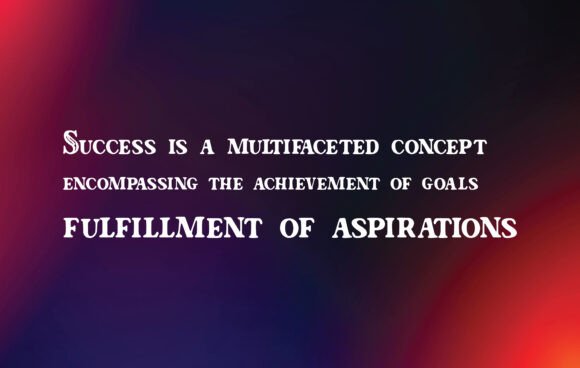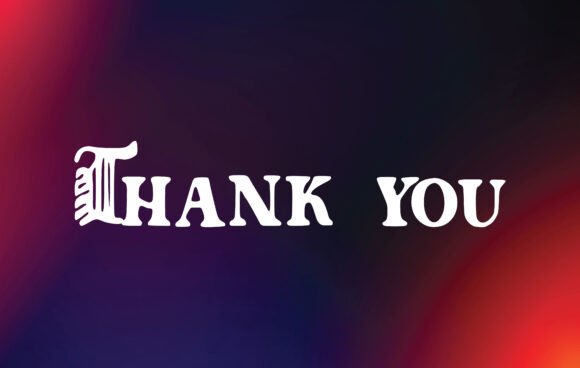
Unleash Your Creativity with Blaze Font: The Ultimate Choice for Designers and Crafters
Are you tired of using the same old fonts for your creative projects? Look no further than Blaze Font, a stunning and versatile typeface that can elevate your designs to new heights. With its unique blend of elegance and playfulness, Blaze Font is the perfect choice for designers and crafters looking to add a touch of sophistication and whimsy to their work.
The Beauty of Blaze Font
Blaze Font is a lovely and beautiful font that boasts a distinctive style that sets it apart from other typefaces. Its sleek lines, curves, and subtle nuances make it a joy to use, whether you’re creating a logo, branding materials, or quotes. The font’s beauty lies in its ability to convey emotion and personality, making it an excellent choice for designers who want to add a human touch to their work.
Take Your Creative Ideas to the Next Level
Blaze Font has the potential to take your creative ideas to the highest level. Its versatility and flexibility make it suitable for a wide range of applications, from digital designs to print materials. Whether you’re working on a logo, brochure, or social media graphics, Blaze Font can help you create stunning visuals that capture your audience’s attention.
The Best Choice for Eye-Catching Logos, Branding, and Quotes
Blaze Font is the best choice for creating eye-catching logos, branding materials, and quotes. Its unique style and flair make it perfect for:
- Logos: Create a lasting impression with a custom logo that showcases your brand’s personality and values.
- Branding: Establish a consistent visual identity across all your marketing materials with Blaze Font.
- Quotes: Add a touch of elegance and sophistication to your inspirational quotes and sayings.
Why Designers and Crafters Love Blaze Font
Designers and crafters love Blaze Font for several reasons:
- Unique Style: Blaze Font boasts a distinctive style that sets it apart from other typefaces.
- Versatility: The font is suitable for a wide range of applications, from digital designs to print materials.
- Ease of Use: Blaze Font is easy to read and works well in various contexts.
- Customization: The font can be customized to fit your brand’s personality and style.
Tips for Using Blaze Font Effectively
Here are some tips for using Blaze Font effectively:
- Pair it with Other Fonts: Combine Blaze Font with other fonts to create a unique and visually appealing design.
- Experiment with Colors: Try out different colors and color combinations to add depth and interest to your design.
- Use it Consistently: Use Blaze Font consistently across all your marketing materials to establish a strong brand identity.
In conclusion, Blaze Font is a stunning and versatile typeface that can elevate your designs to new heights. With its unique blend of elegance and playfulness, it’s the perfect choice for designers and crafters looking to add a touch of sophistication and whimsy to their work. Whether you’re creating logos, branding materials, or quotes, Blaze Font is the ultimate choice for taking your creative ideas to the next level.